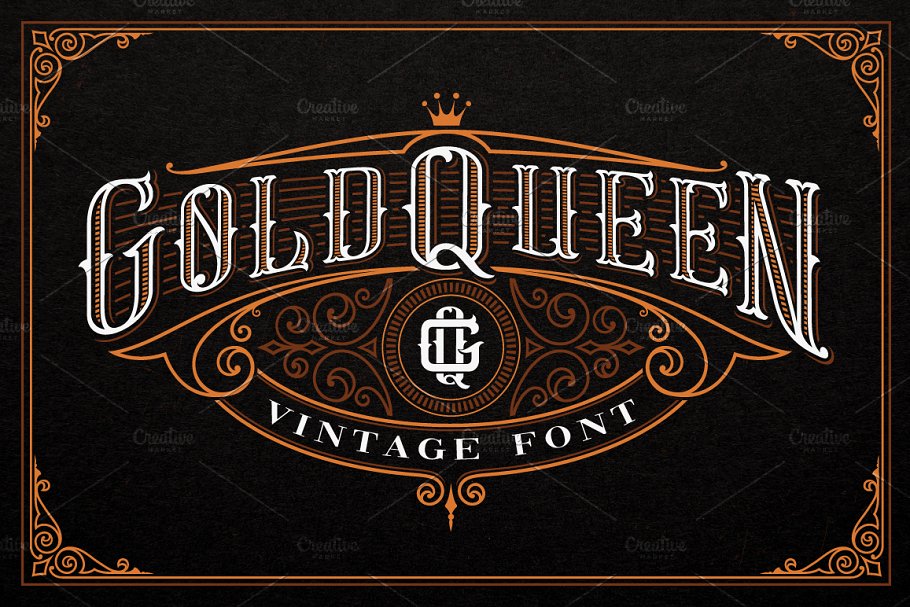
Looking for the perfect font to add a touch of vintage charm to your projects? Look no further than Gold Queen Vintage Font, a stunning serif font designed by the talented Harry Kasyanov. With its unique features and captivating design, this font is sure to elevate your creations and leave a lasting impression.
Gold Queen Vintage Font is the ultimate choice for those seeking the best font for Latin tattoos. Its elegant and timeless style perfectly complements the art of tattooing, allowing you to create stunning and meaningful designs. Whether you're a tattoo artist or a tattoo enthusiast, this font is a must-have in your collection.
But the versatility of Gold Queen Vintage Font doesn't end there. It is also a perfect fit for vintage tattoo studio logos, barbershops, and alcohol labels. Its classic and sophisticated look adds a touch of nostalgia and authenticity to any design. Let your creativity flow and watch your projects come to life with this remarkable font.
Featuring a full set of characters from A to Z, numerals, and punctuation, Gold Queen Vintage Font gives you complete creative freedom. Its opentype features with the extension svg allow you to experiment with different styles and create truly unique designs. Whether you're working on a poster, a website, or any other project, this font has everything you need to make it stand out.
If you're a fan of color fonts, you're in luck! Gold Queen Vintage Font offers color variations that are compatible with Adobe Illustrator CC 2018 and Photoshop CC from 2017. The HKF Gold Queen Drop line (color) and HKF Gold Queen Drop shadow (color) fonts in OTF SVG format allow you to add vibrant and eye-catching elements to your designs effortlessly.